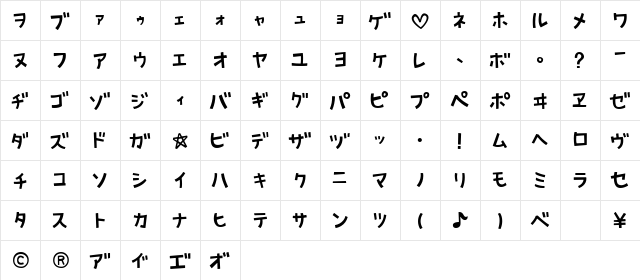
AprilFoolKR Regular Font Preview
AprilFoolKR Regular
Design Context for AprilFoolKR Typeface
AprilFoolKR is a composed and adaptable typeface that performs quietly and consistently across a wide range of design contexts.